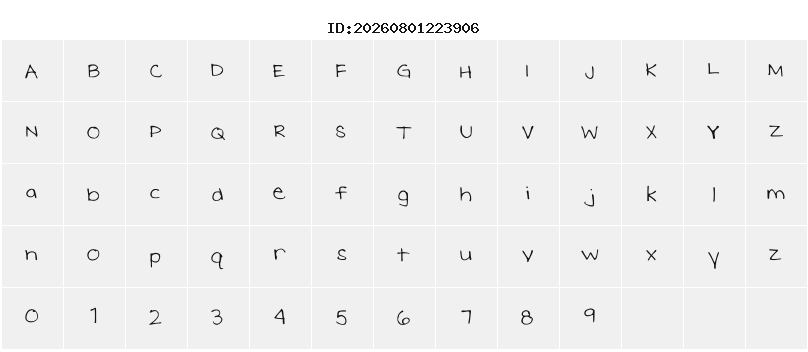
• Font Name: MeghansFont2
• Full Font Name: MeghansFont2
About MeghansFont2.ttf
MeghansFont2.ttf is a modern, elegant sans-serif font designed for ultimate readability and visual harmony. Perfect for branding, headlines, web design, and print materials.